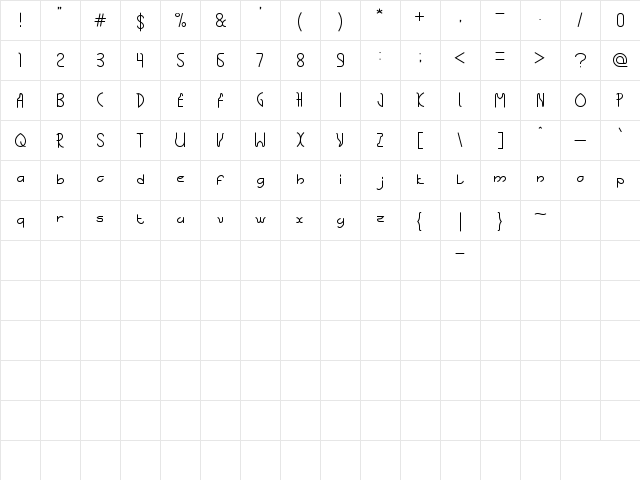
THE SCIENCE ARCHAEOLOGIST Regular Free Font
THE SCIENCE ARCHAEOLOGIST Regular
Design Context for THE SCIENCE ARCHAEOLOGIST
THE SCIENCE ARCHAEOLOGIST is a composed and adaptable typeface that performs quietly and consistently across a wide range of design contexts.